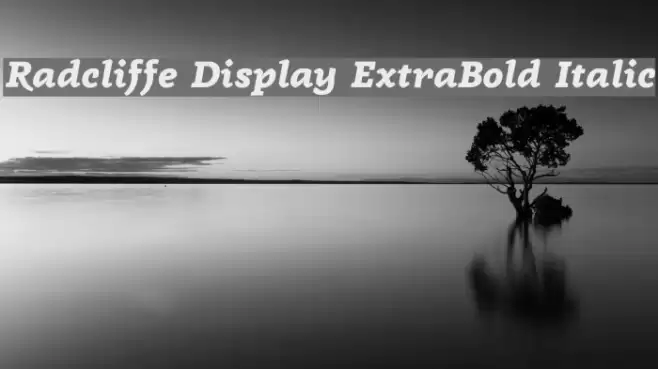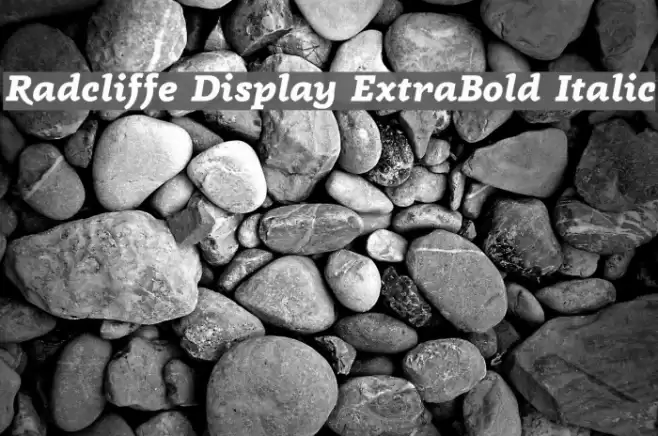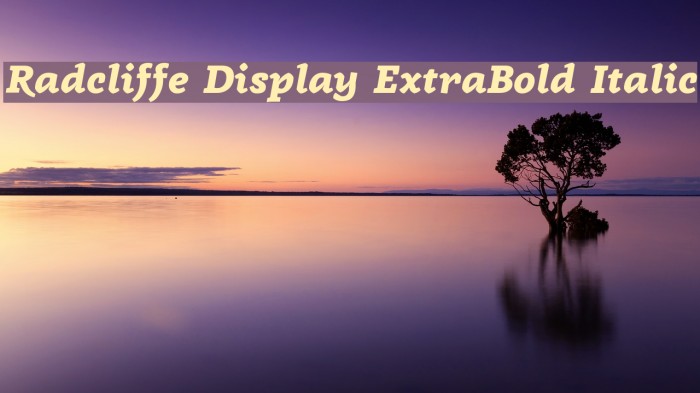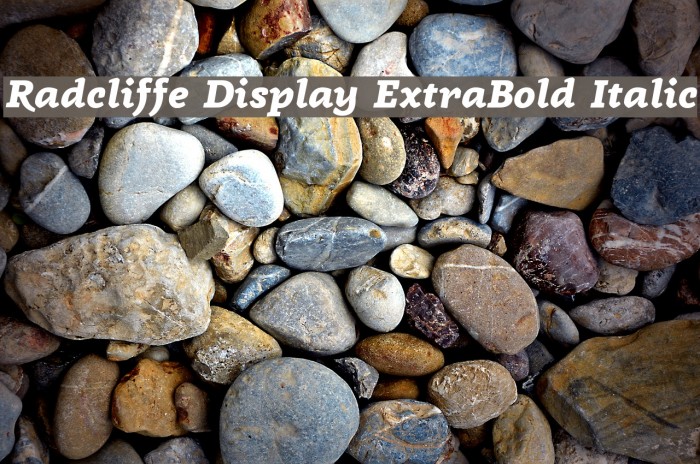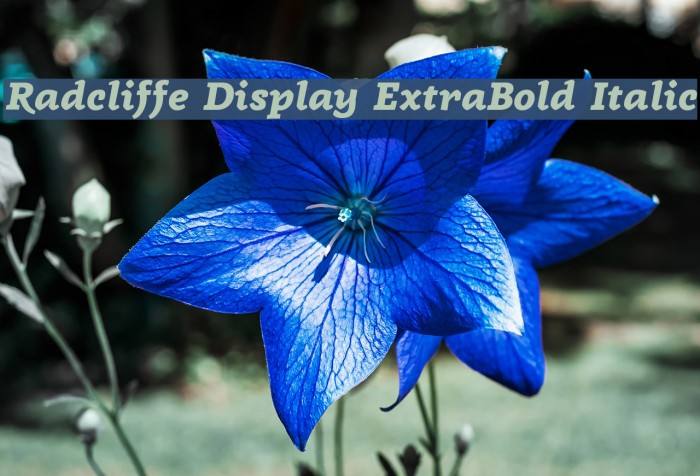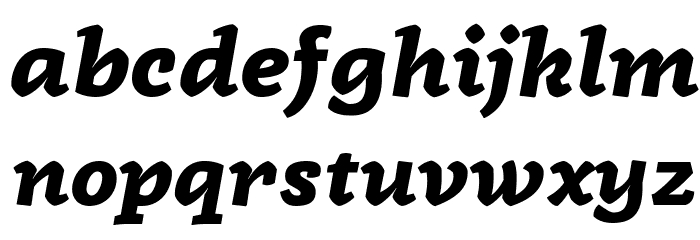
Radcliffe Display ExtraBold Italic Font
Radcliffe Display ExtraBold Italic Description
This font features a bold and dynamic style with a strong emphasis on its italicized form. The characters exhibit a pronounced slant, giving a sense of movement and energy. The strokes are thick and consistent, providing a robust and impactful appearance. The serifs are sharp and slightly exaggerated, adding to the font's dramatic flair. This typeface is designed to capture attention and convey a sense of boldness and confidence. The overall design is modern yet retains a classic touch, making it versatile for various applications.
A bold, italic serif font with dynamic slant and strong presence from Uncategorized fonts.
- Proposed Projects: Ideal for headlines, branding, posters, and any design requiring a bold statement.